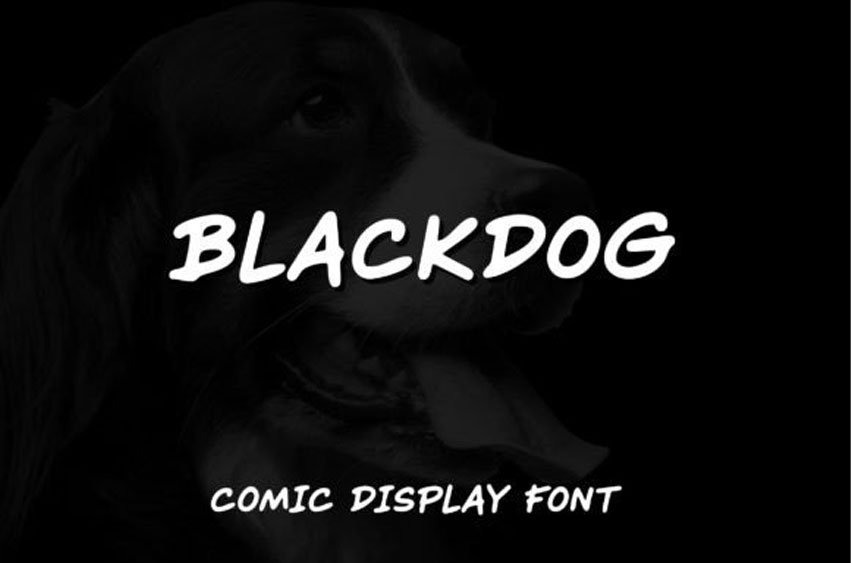
Blackdog Font
Blackdog Font is a display font with capital letters. It has a handwriting style that will bring a unique feel to each word.
Blackdog can be used in any work such as children’s books, posters, advertisements, social media content, logos, and many more.